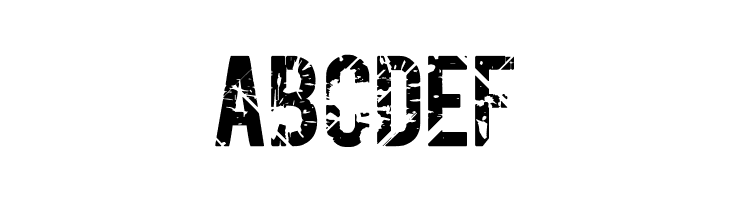
BraserFREE Font
- Font: BraserFREE
( Fonts by Ryoichi Tsunekawa - www.dharmatype.com )
A bold, distressed font with a grunge aesthetic and textured, worn appearance.